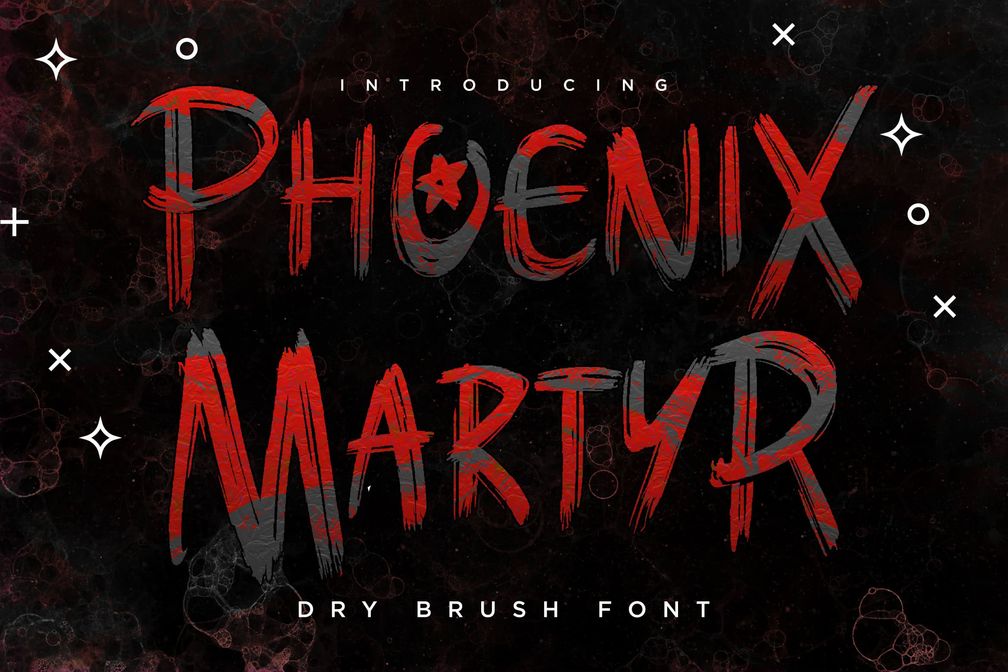
Phoenix Martyr
Phoenix Martyr – Dry Brush Font
Phoenix Martyr is a gritty and intense dry brush font that captures raw emotion and unfiltered energy. Its handcrafted strokes and irregular edges give it a rebellious spirit, making it ideal for bold, attention-grabbing designs.
• Dry Brush Texture: Every letter is uniquely textured to look hand-painted, giving your work an authentic, edgy aesthetic.
• Bold Character: Thick strokes and expressive movements make this font perfect for statement pieces.
• Versatile Applications: Excellent for band posters, streetwear branding, edgy quotes, protest art, logos, and cinematic titles.
• All Caps Style: Includes uppercase letters, numerals, and punctuation with a fierce visual rhythm.